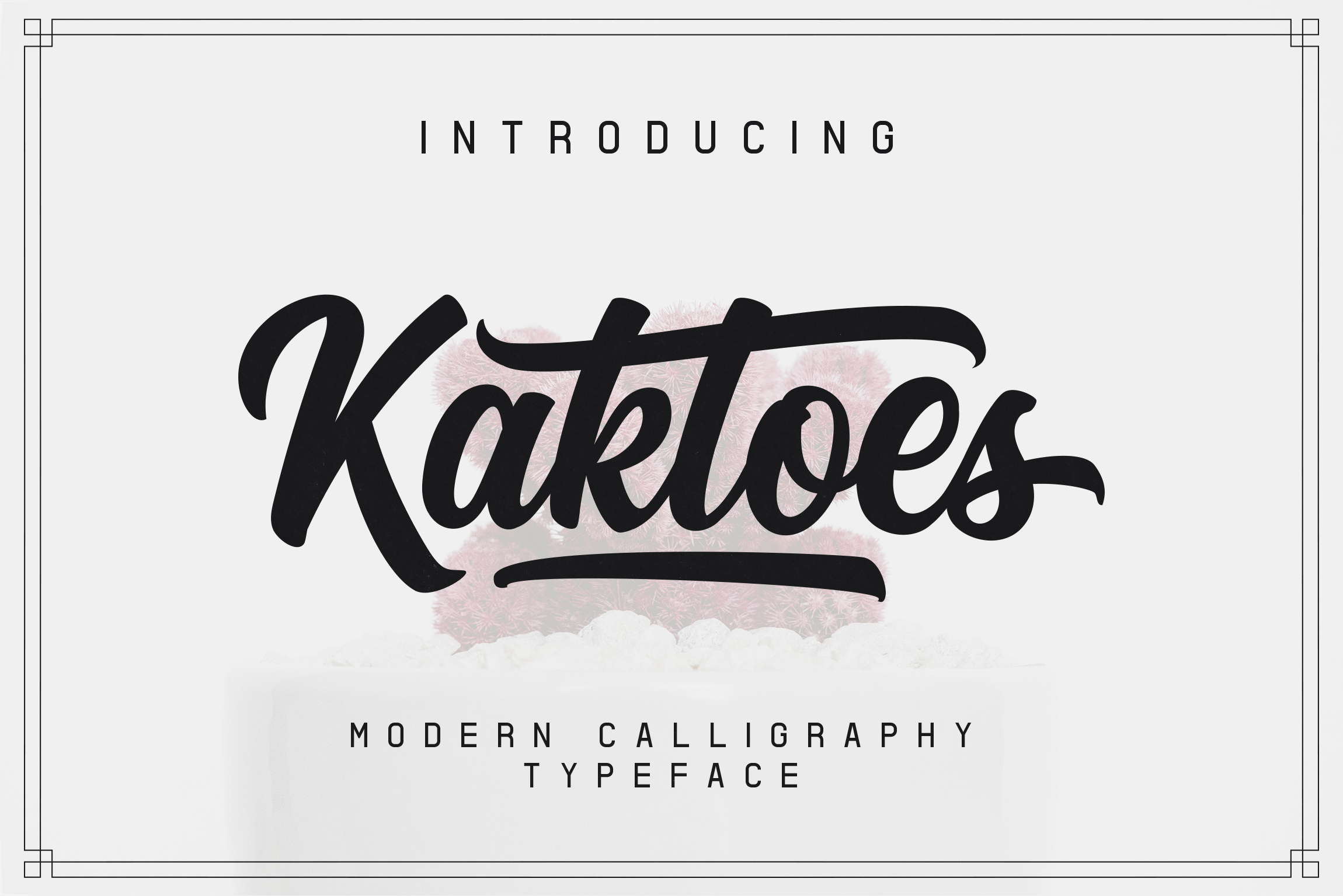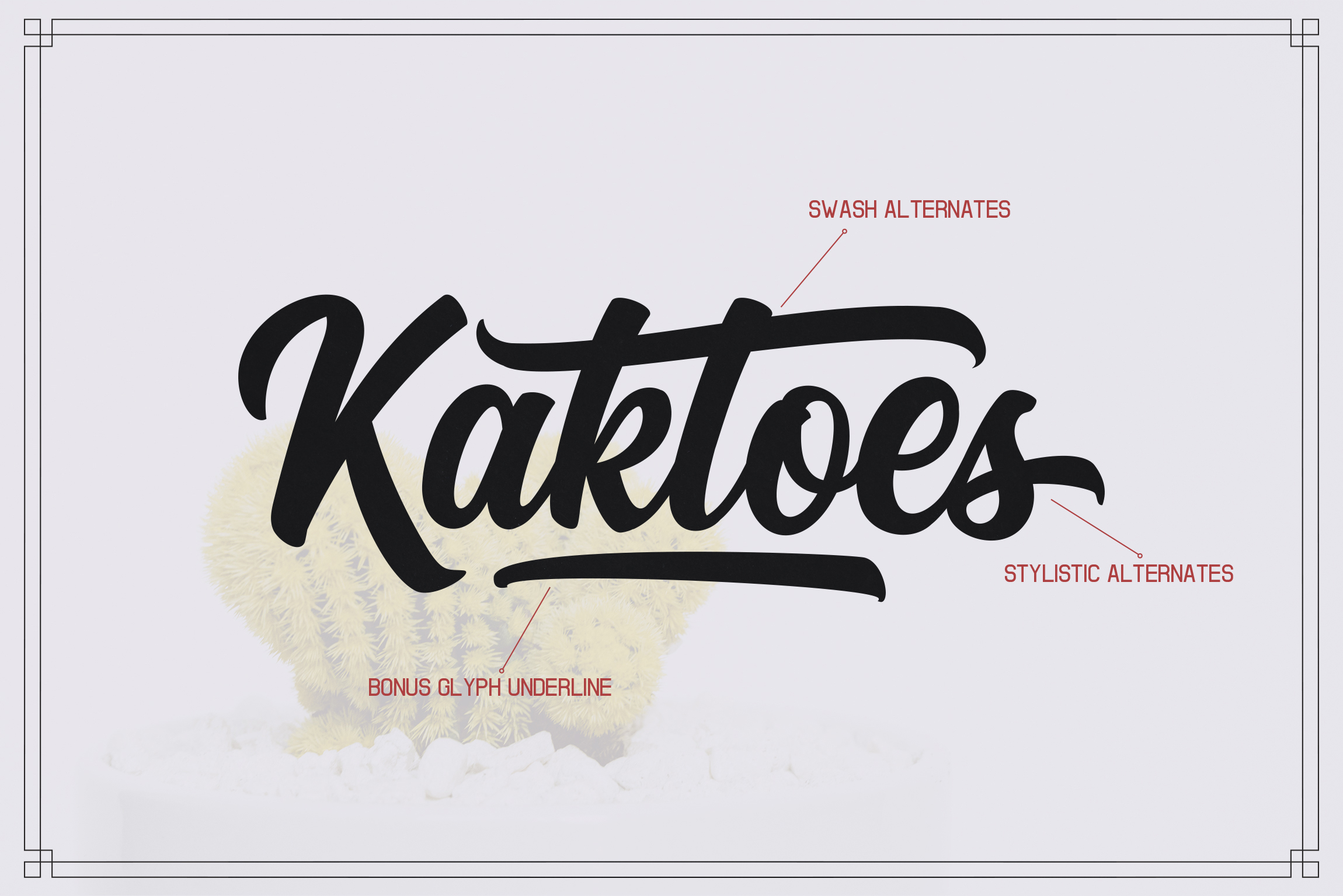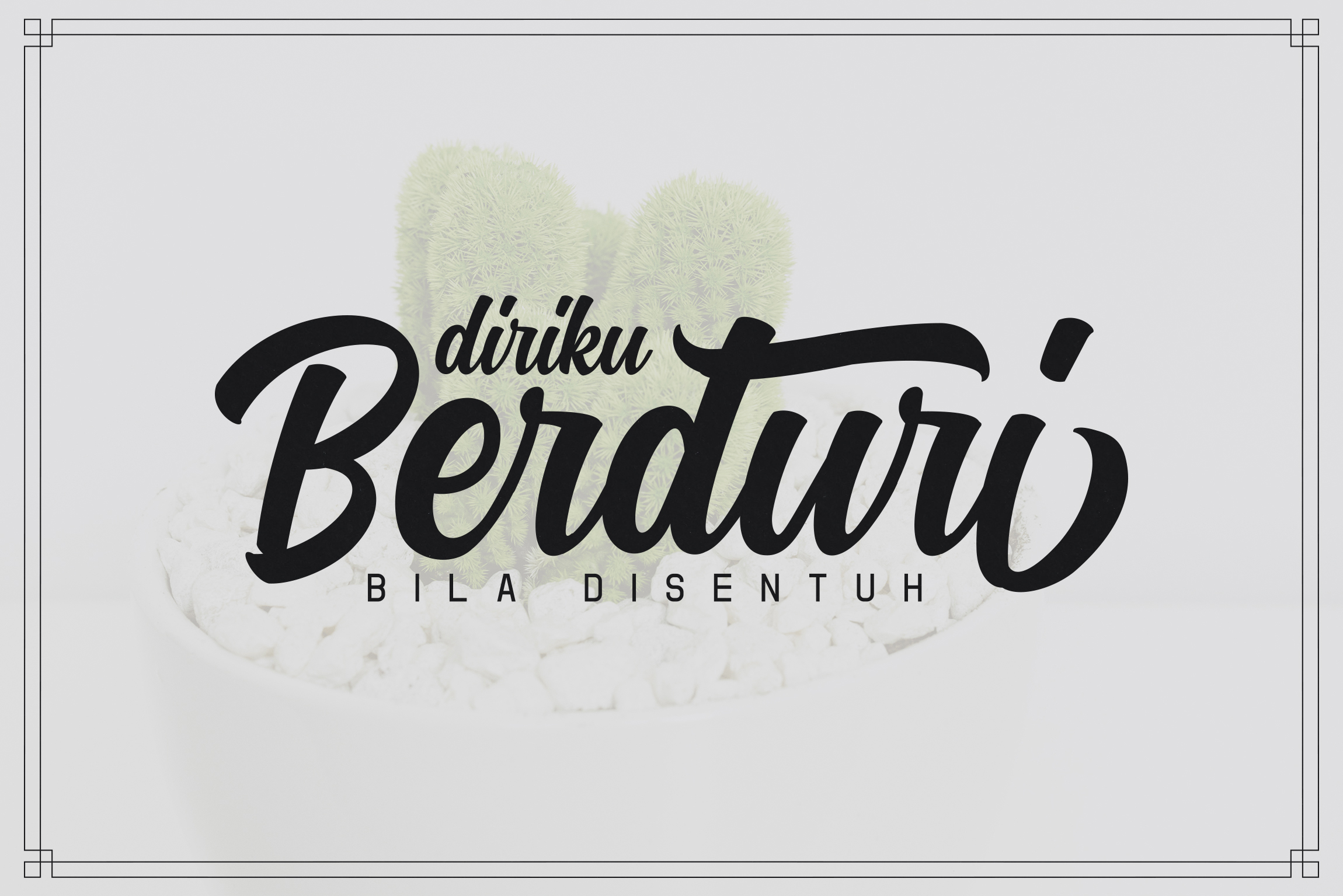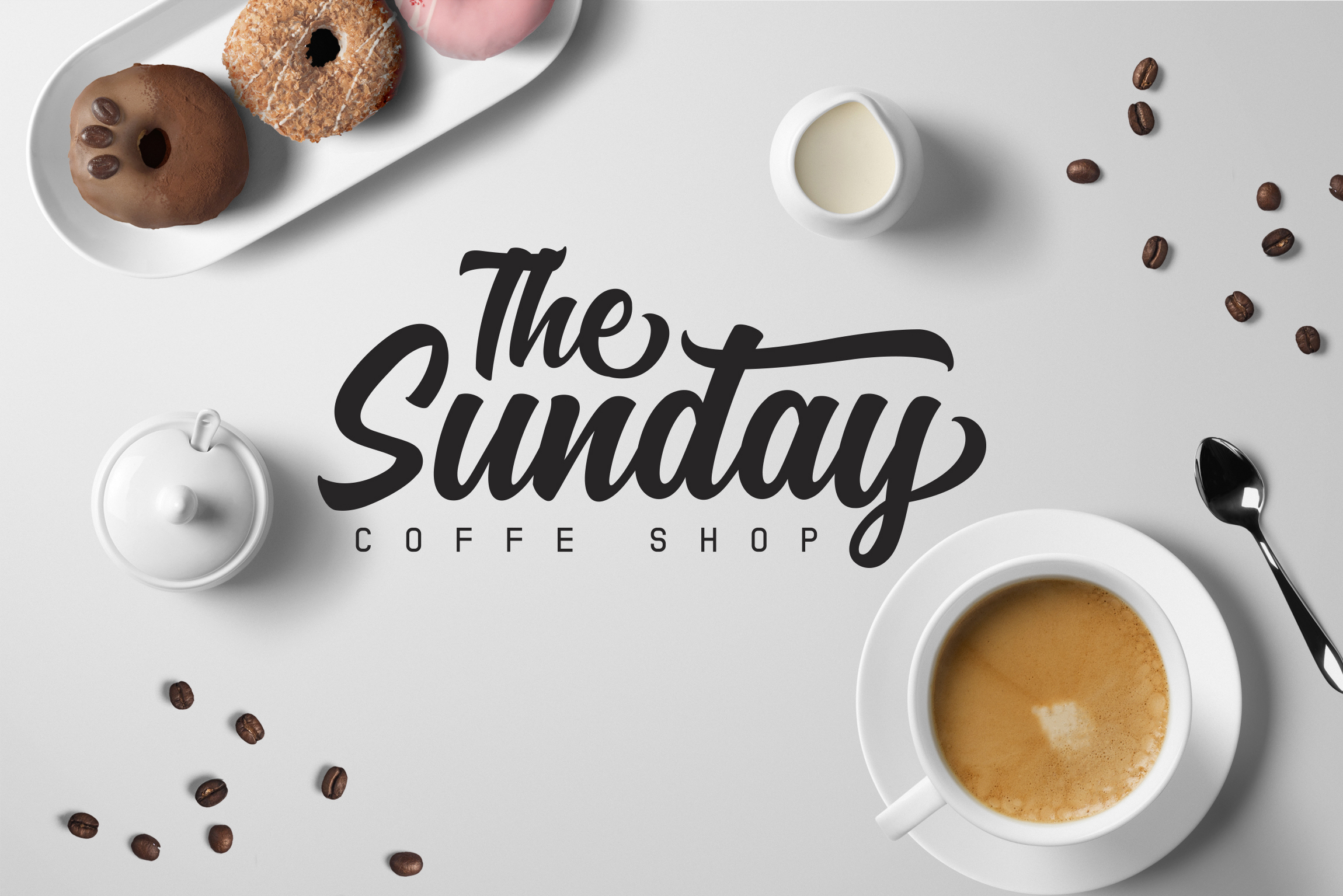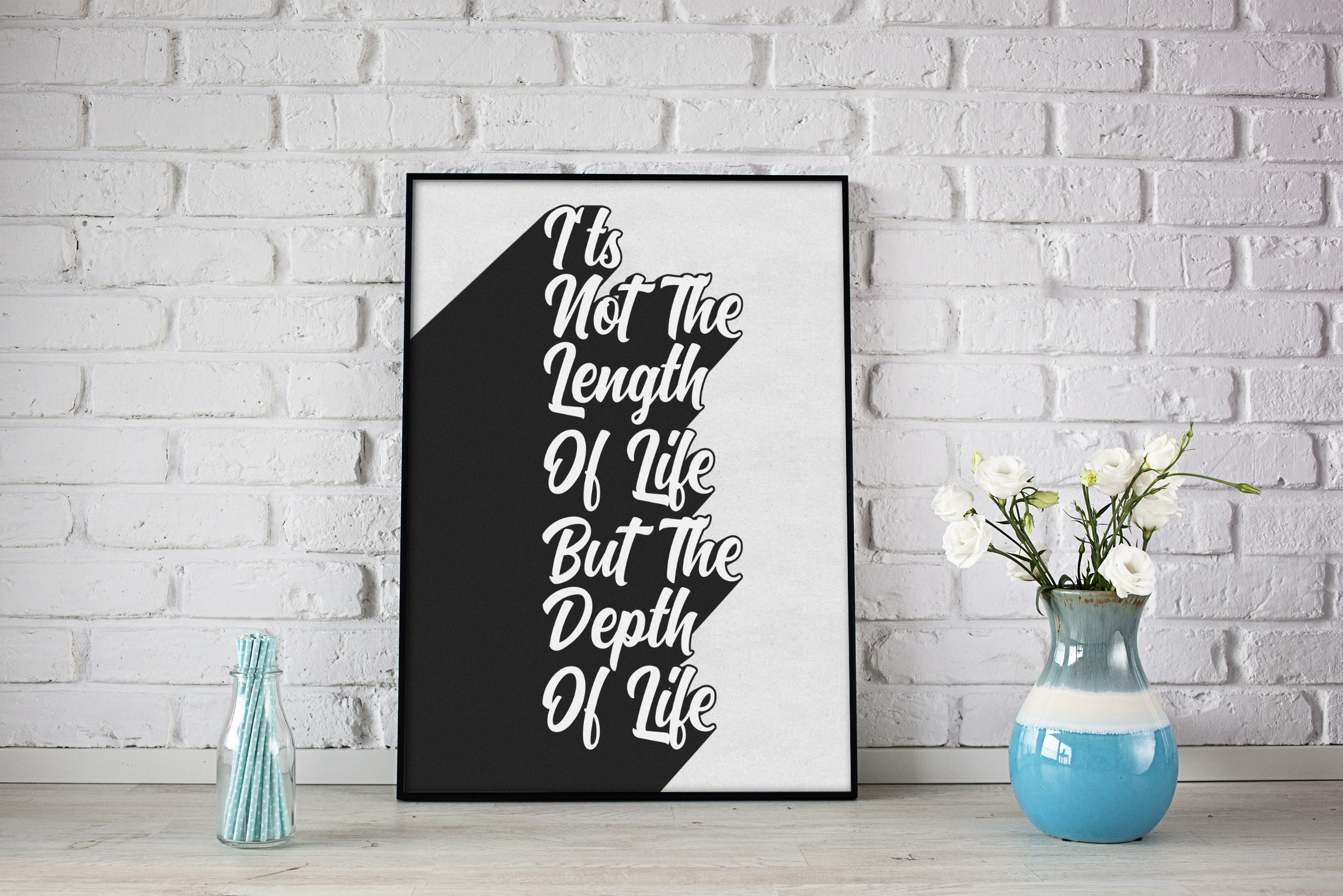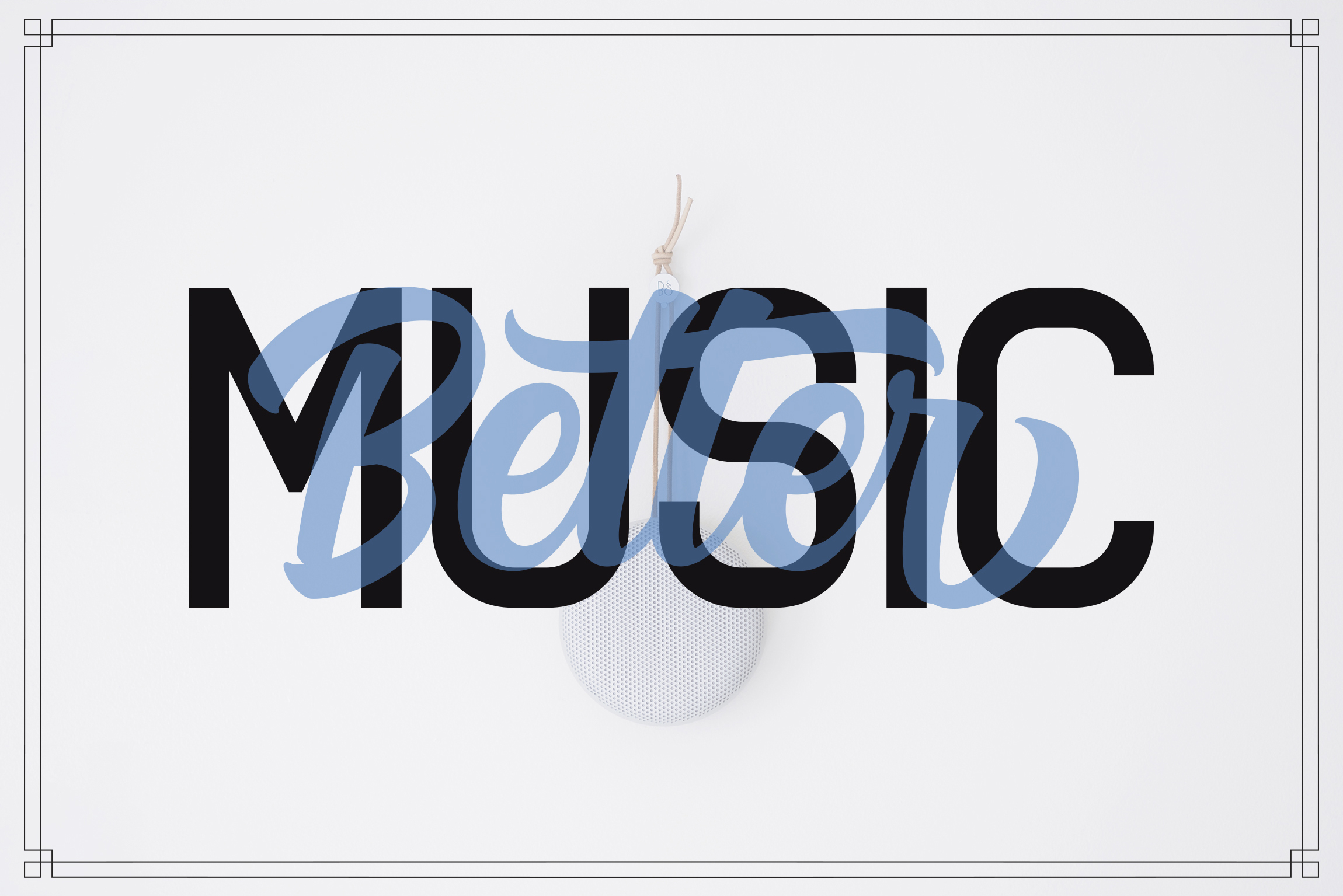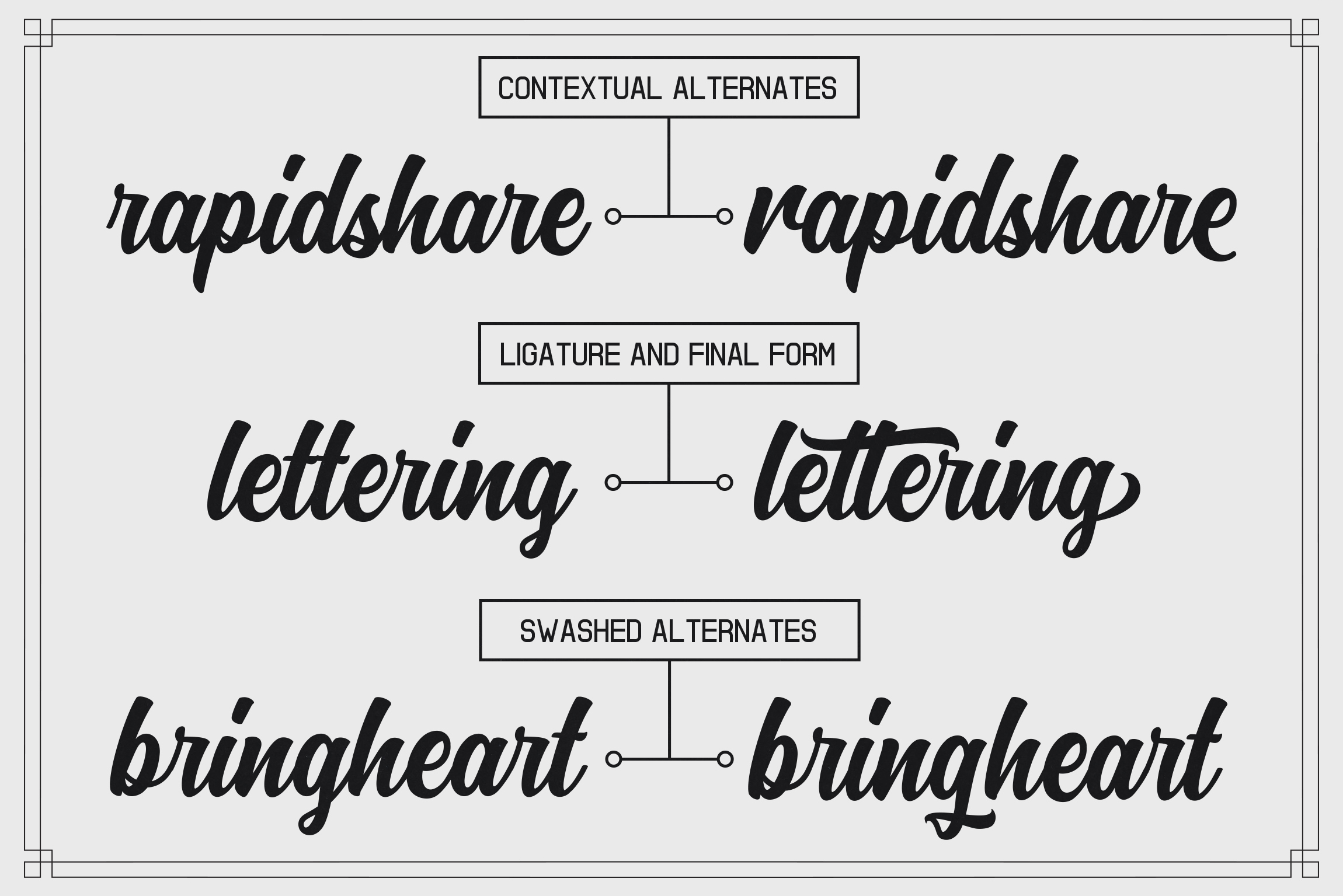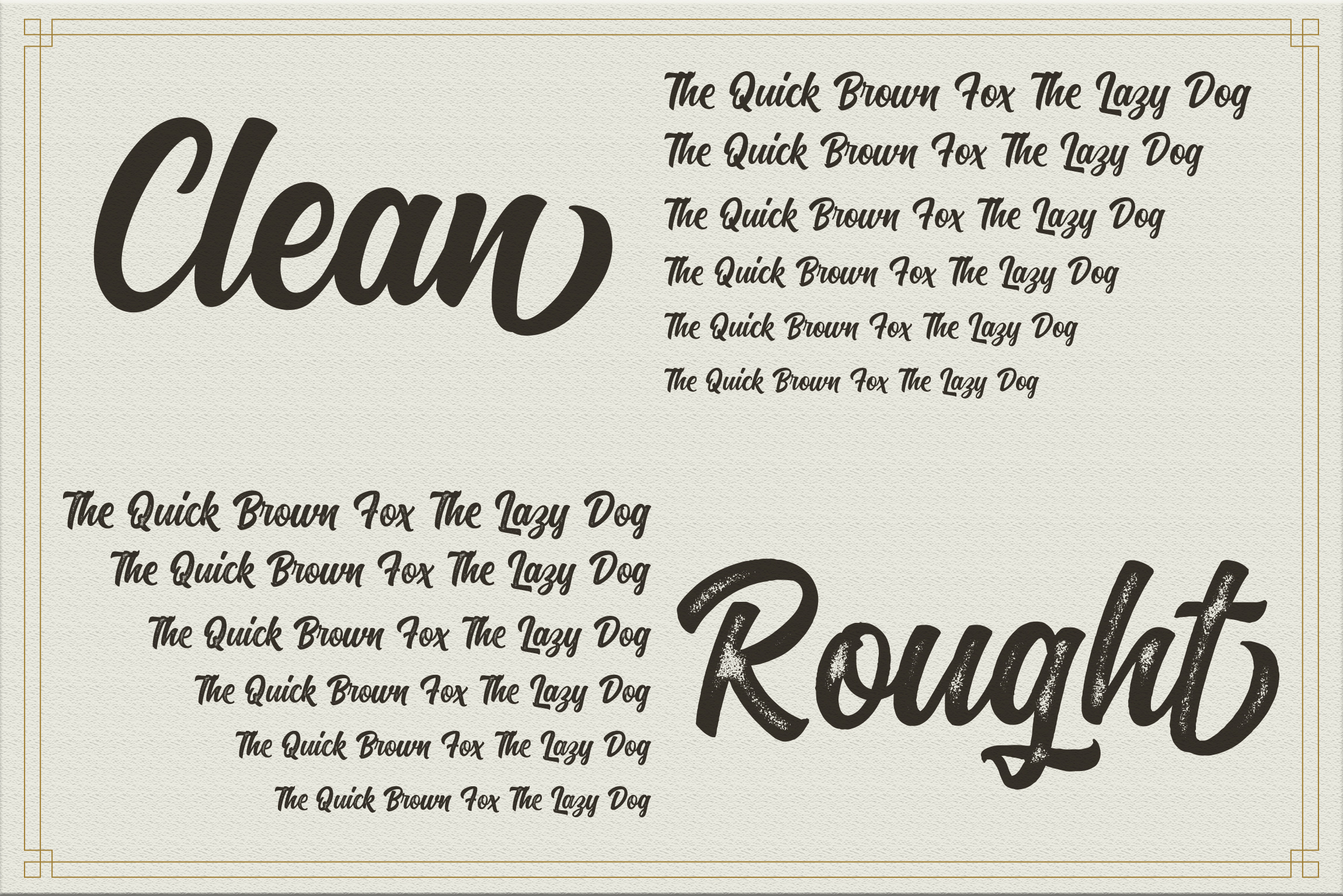
Kaktoes Font
About Kaktoes Font
Kaktoes is a gorgeous, manual lettering font with both clean and rough design, as well as an underline set! This font looks stunning in a wide range of styles and stands out in vintage inspired projects.